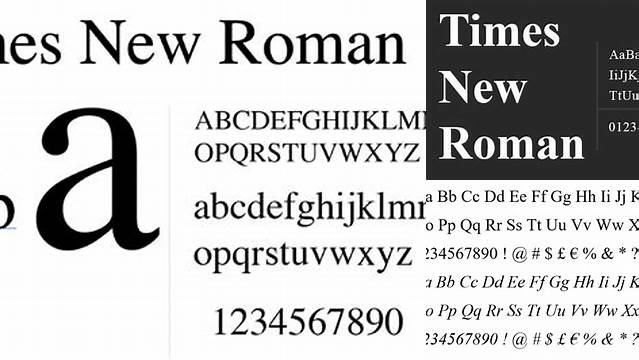
What is Times New Roman and Why Do You Need It?
First things first, what exactly is Times New Roman? It's a serif typeface designed by Stanley Morison and Victor Lardent and commissioned by the British newspaper The Times in 1931. Designed for readability and efficiency in print, it quickly became a staple in publishing and has since made its way into the digital world. The design of Times New Roman is all about clarity, with its serifs (those little feet at the end of the letters) helping to guide the eye across the page. This makes it a great choice for anything from long-form articles to reports and documents. It's the gold standard in fonts for a reason; you've probably seen it everywhere without even realizing it.
So, why do you need it? Well, beyond its historical significance and widespread use, Times New Roman is a safe bet. It's a default font in many word processors, which means that anyone you send a document to is highly likely to have it installed. This consistency is super important if you don't want your formatting to go haywire when someone else opens your file. Plus, it’s just a great-looking font! It gives off a sense of professionalism, so it's a perfect choice for work-related stuff.
One of the fantastic features of Times New Roman is its versatility. It works well for both body text and headings, although you might want to use a slightly bolder weight for titles to make them pop. You can use it in a variety of contexts, from academic papers and business reports to personal letters and online content. Moreover, it's a timeless classic; it has been around for years and will continue to be used for years to come. It never goes out of style, meaning your documents will always look current.
Also, there's a sense of trust that comes with Times New Roman. Because it's so well-known and universally available, it conveys that you're putting in the effort and paying attention to the details. This is more important than you might think. If you want to create a good impression, using the right font can make all the difference. Now that you know the ins and outs, you're set to go out and grab this amazing font.